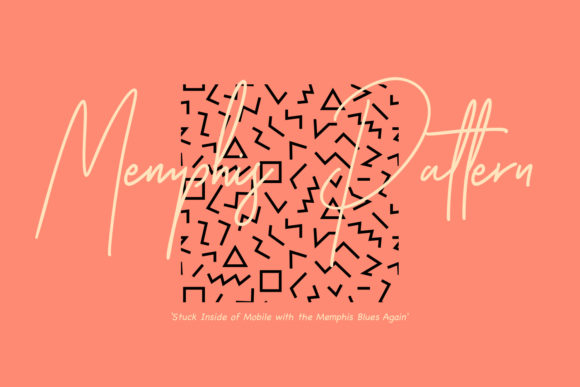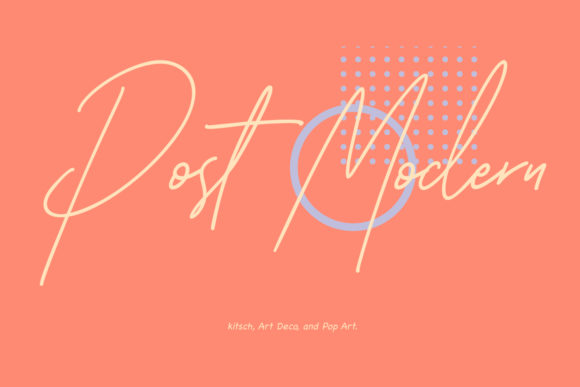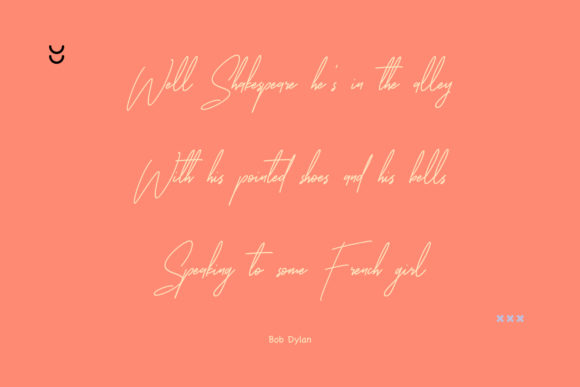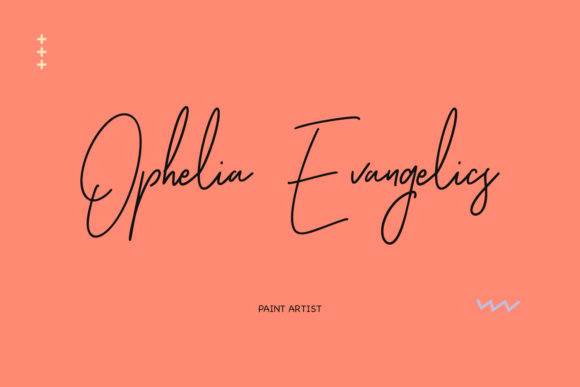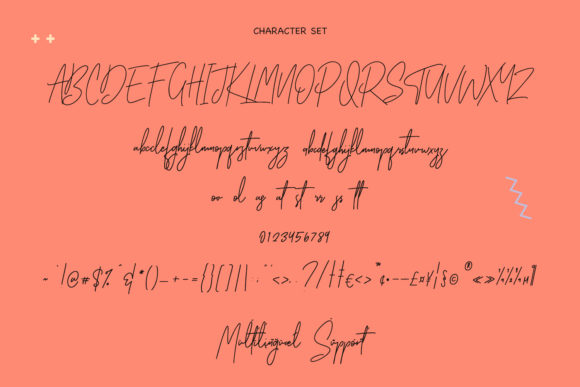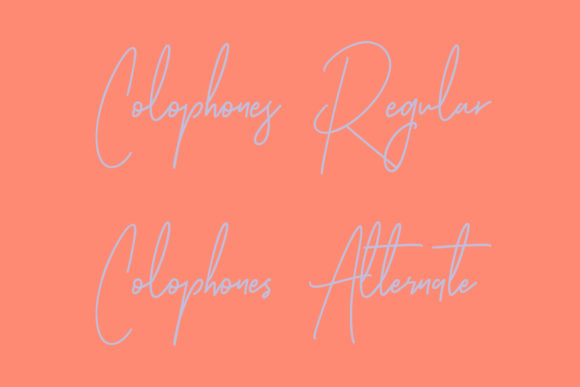
The Sweet Charm of Colophones Font: A Designer’s Delight
I’ll never forget the time I was working on a project for a client who wanted a custom wedding invitation. I had all the design elements ready, but I was stuck on finding the perfect font. That’s when I stumbled upon Colophones Font, and it instantly became my go-to choice. Its sweet and cursive handwritten style, paired with thin and stylish letters, made it the ideal fit for the project. In this article, I’ll share my experience with Colophones Font, its features, and how to make the most of it in your designs.
A Personal Review: What I Love and What to Watch Out For
- 💕 Sweet and Cursive Handwritten Style: Colophones Font has a beautiful, flowing script that adds a touch of elegance to any design.
- ✅ Thin and Stylish Letters: The font’s thin letters make it perfect for creating personalized designs that are both modern and sophisticated.
- 🎨 Versatility: Colophones Font can be used for a wide range of design projects, from wedding invitations to branding and packaging.
- ⚠️ Limited Use in Small Sizes: Due to its thin letters, Colophones Font may not be the best choice for small font sizes or body text.
- ⚠️ Occasional Kerning Issues: As with any font, you may encounter some kerning issues, especially when using it in combination with other fonts.
- Take advantage of OpenType features, such as glyphs and stylistic alternates, to add more variety to your text.
The Story Behind Colophones Font
Colophones Font was designed with love and care by a talented type designer who wanted to create a font that would add a touch of sweetness to any design. The designer’s inspiration came from traditional handwritten scripts and the beauty of imperfection. The result is a font that’s both elegant and approachable.
Q: Is Colophones Font suitable for body text?
A: While Colophones Font is beautiful, it’s not ideal for body text due to its thin letters and cursive style. It’s best used for headings, titles, and short paragraphs.